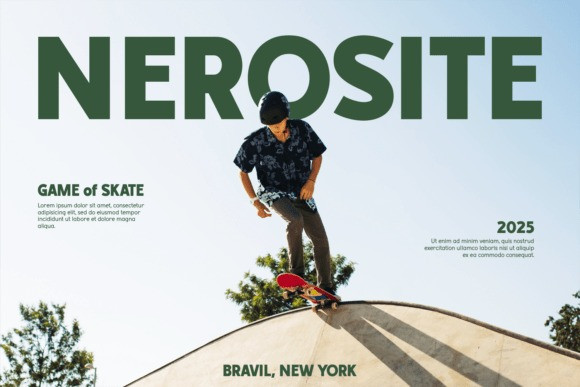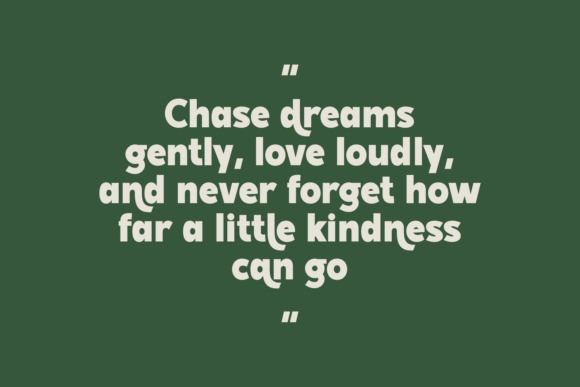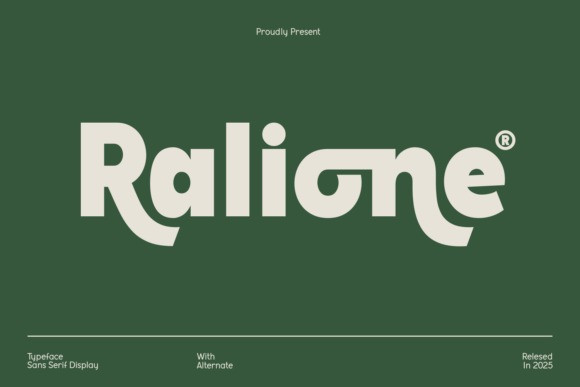
Ralione Font
Ralione Font, a sans serif display typeface released in 2025. “Ralione” features a distinct retro-inspired or “groovy” style with chunky letterforms and unique alternates, making it a stylish choice for branding, headlines, and logos.